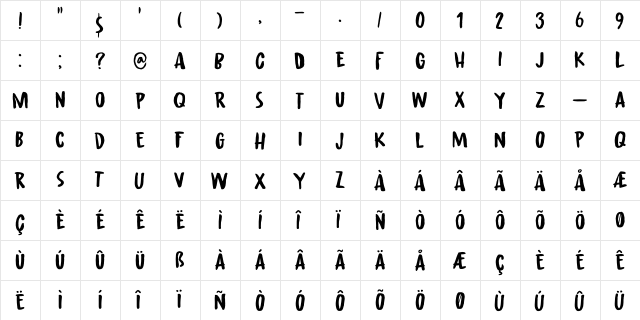
Awesome Sauce DEMO Regular
| Foundry | David Kerkhoff |
| Designer | David Kerkhoff |
Design Context for Awesome Sauce DEMO Typeface
Awesome Sauce DEMO is a composed and adaptable typeface that performs quietly and consistently across a wide range of design contexts.